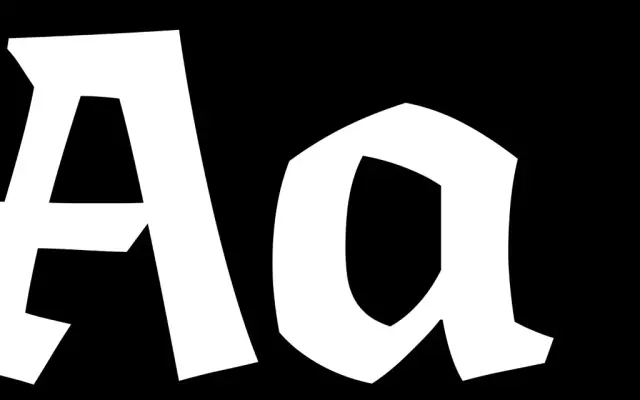
Algo
Black Foundry · Michel Derre, FONTYOU
A blackletter-inspired display serif with broken ductus and alternating concave-convex curves, available in three weights including a variable font.
Drawing on Gothic calligraphy's angular ductus, it blends broken strokes with differentiated in- and out-strokes to produce a sculptural, unpredictable rhythm at display sizes. The three weights — Light, Regular and Black — are also packaged as a single variable font. It has been used on Fantasy Zombicide game titles, cards and manuals, making its intended territory of fantasy and medieval-themed work concrete.
Described explicitly as blackletter-inspired, it draws on broken ductus and calligraphic Gothic forms. Its sculptural, angular strokes and antique character place it squarely in the blackletter tradition, deployed as a display face rather than a text setting.